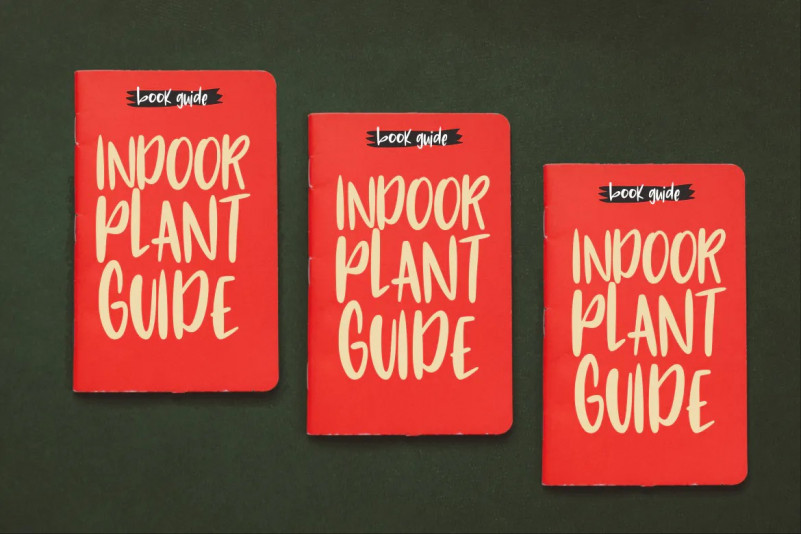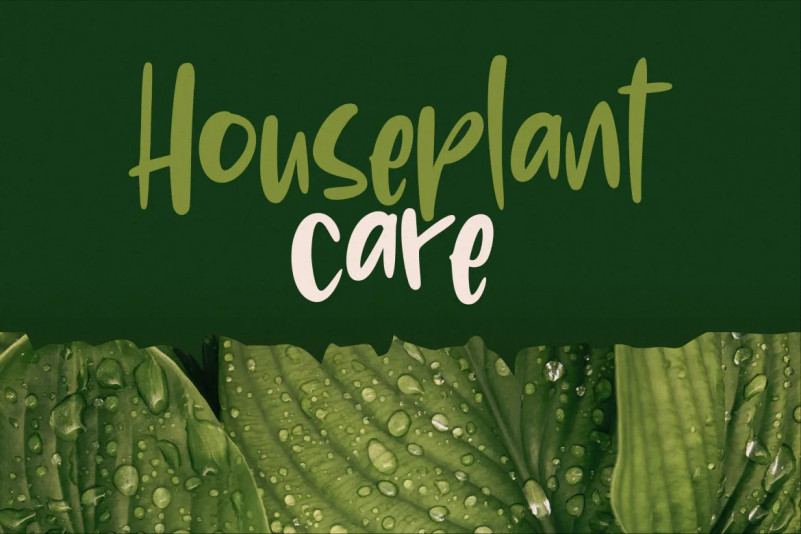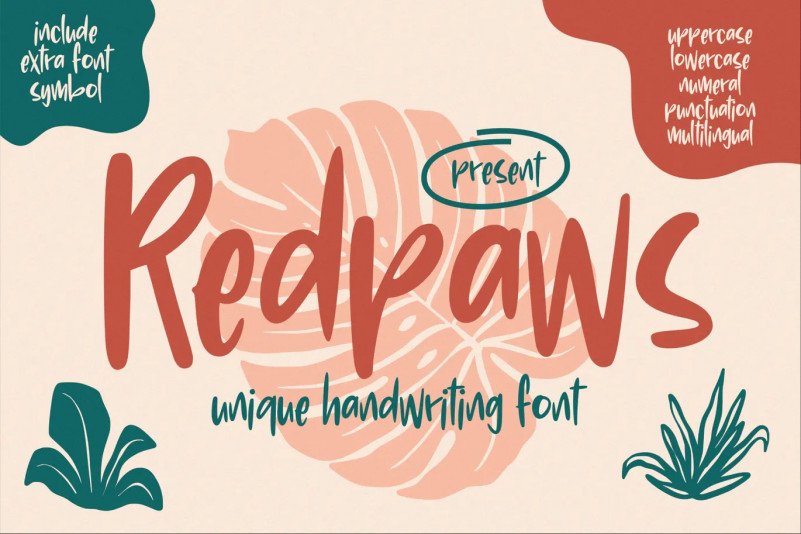
Redpaws Font
Redpaws is a font inspired by a girl’s handwriting style that was enhanced to make it perfect when it becomes a font. This font also has extras (Redpaws extra) that contain natural graphics such as leaves.